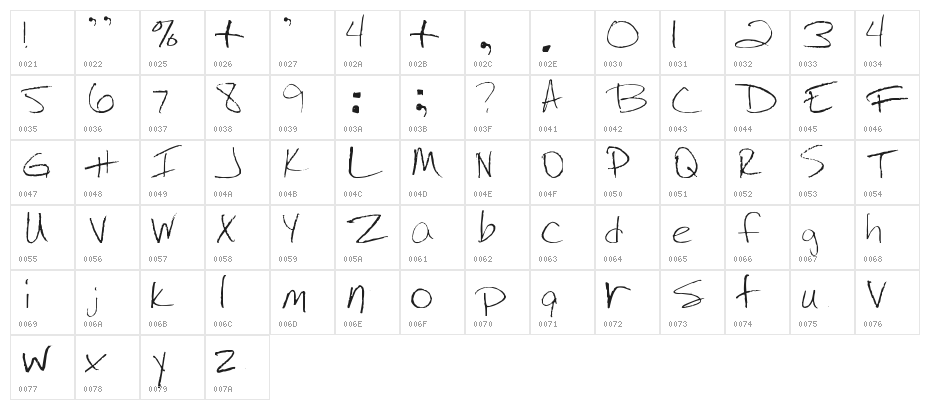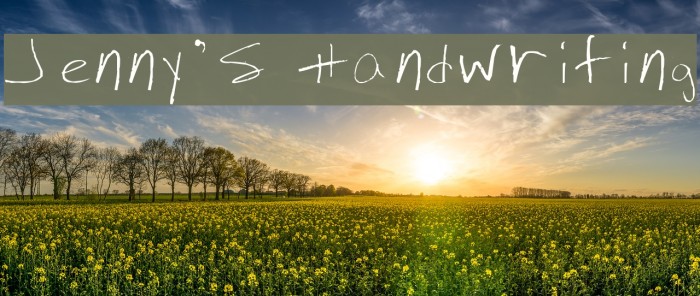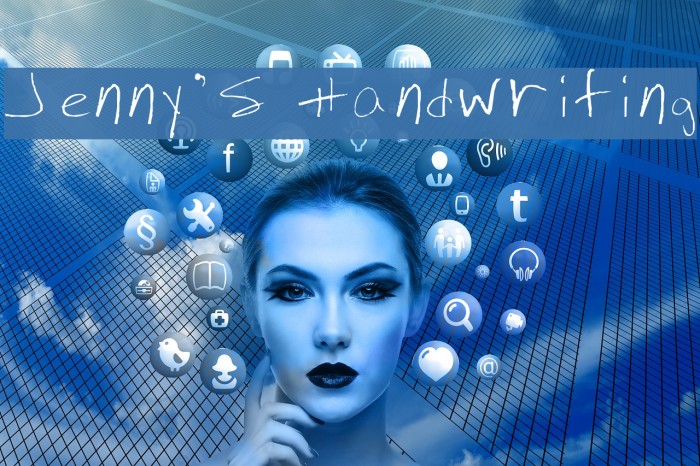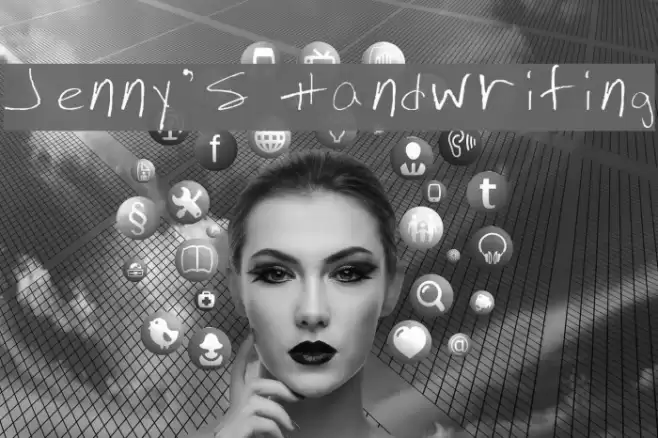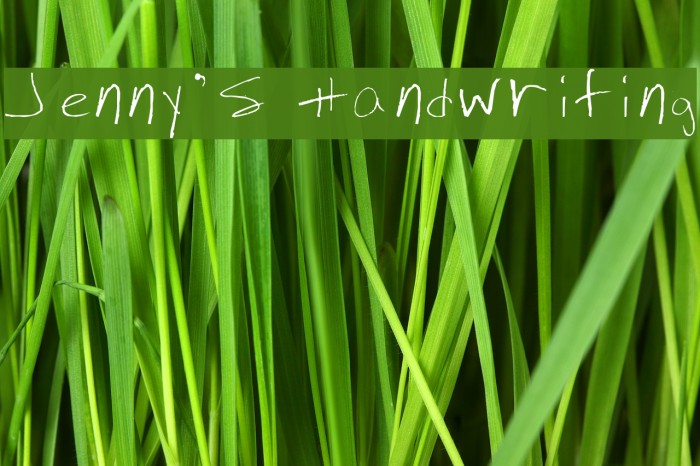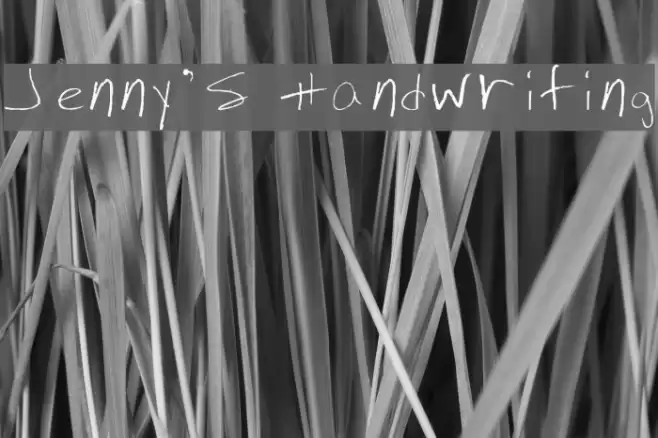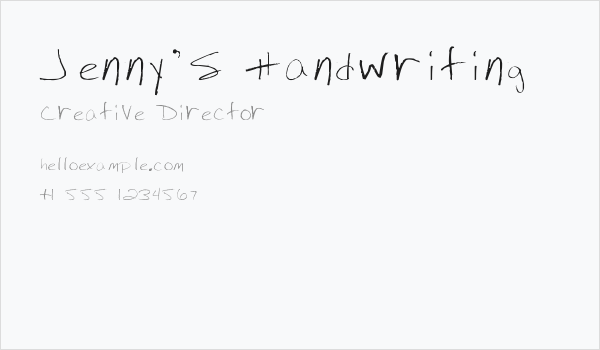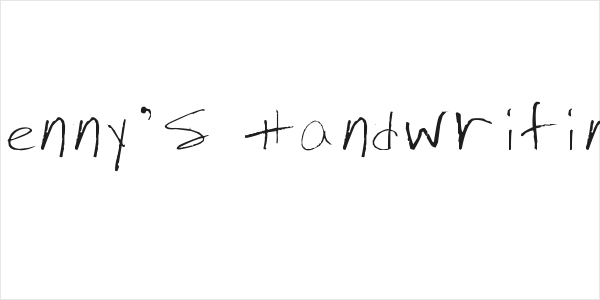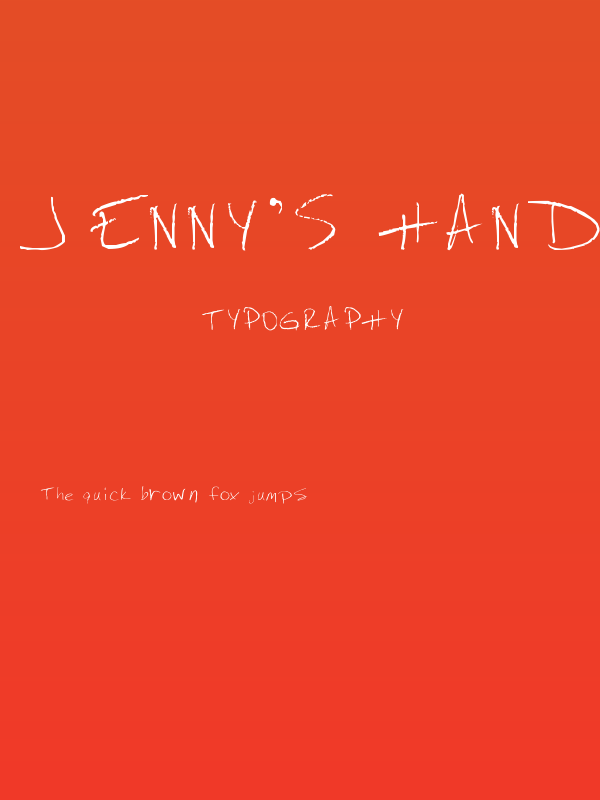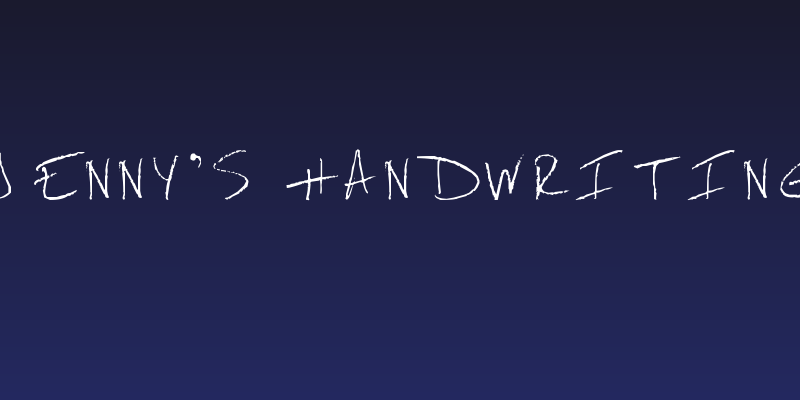
Jenny's Handwriting Font
Jenny's Handwriting Description
This font exudes a casual, handwritten style that mimics natural penmanship. The letters are slightly irregular, giving it an authentic, personal touch. The strokes are uneven, with varying thickness that adds to the handwritten feel. The uppercase and lowercase letters are distinct, with some characters like 'g' and 'y' having unique loops and tails. Numbers and special characters maintain the same informal style, making it versatile for creative projects. The overall appearance is relaxed and approachable, perfect for adding a personal touch to any design.
| Overall Style | Casual, Personal |
| Use Case | Invitations, Greeting cards, Personal notes |
| Proposed Projects | Ideal for personal notes, invitations, greeting cards, and creative projects that require a personal, informal touch. |